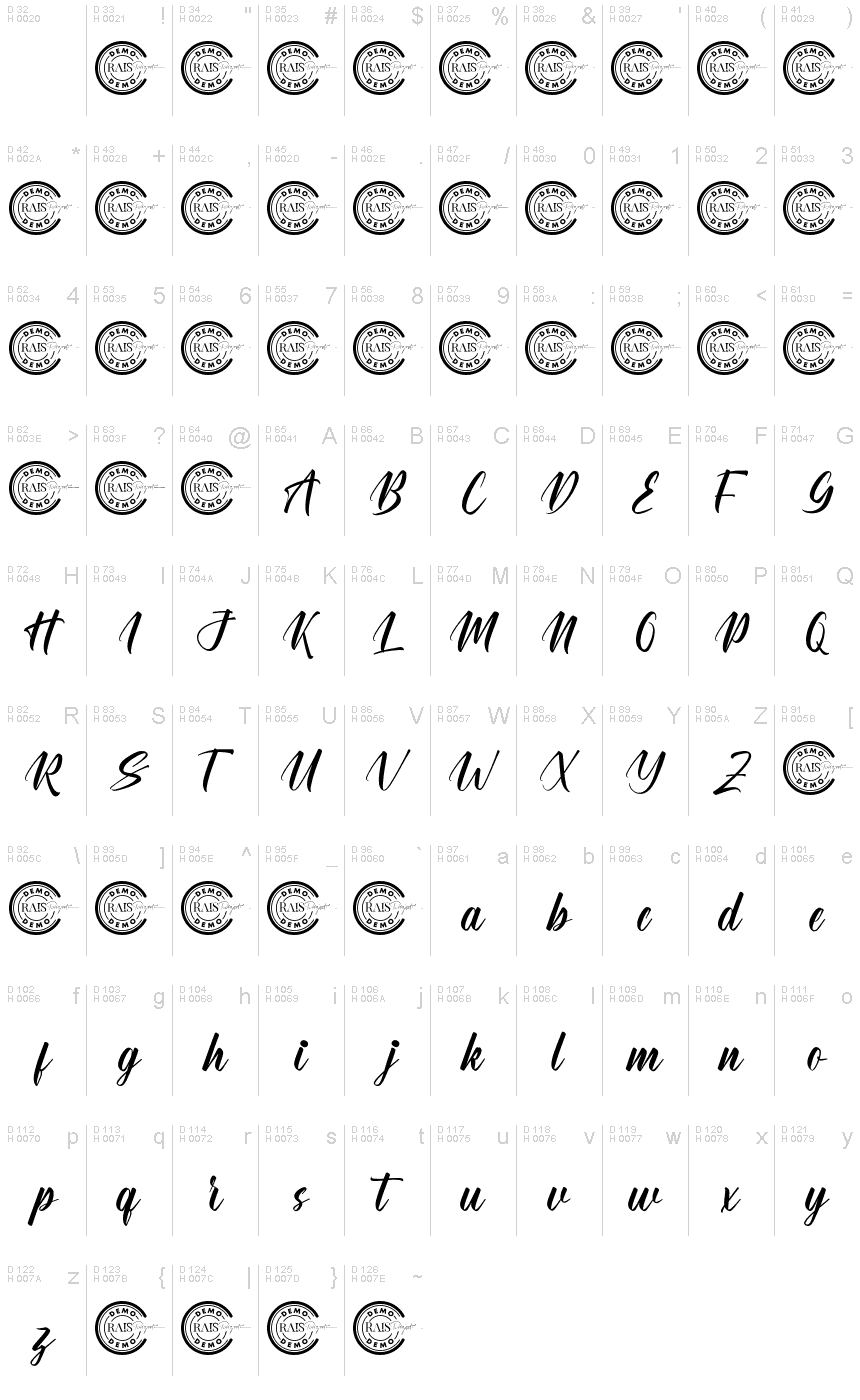
Torrential Rain, the latest calligraphy font from RaisProject, is perfect for adding elegance and sophistication to your designs. With a semi-light weight and semi-condensed width, this font is versatile enough for a range of projects. Use it for wedding invitations, branding materials, or even product packaging. The flowing strokes and curves of Torrential Rain lend themselves beautifully to any project where you want to create an air of refinement and luxury. Download this stunning font today and elevate your design game to the next level!
Torrential Rain Demo